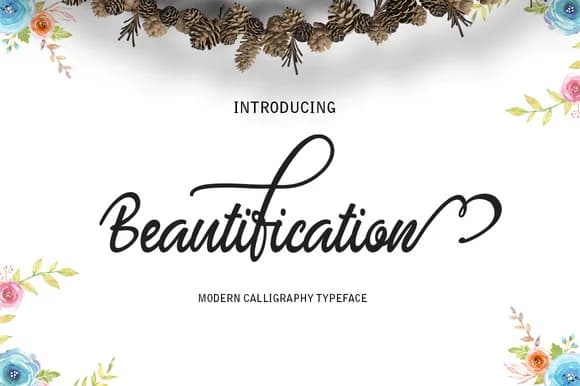
Beautification Font by Alqawoms is a flowing handwritten script typeface that captures the organic beauty of genuine pen-and-ink lettering. The font's smooth, expressive strokes and natural rhythm convey warmth and authenticity, making it ideal for projects where personality and refinement matter. Each letterform carries the unmistakable character of careful handwriting while maintaining the polish expected in professional design work.
This typeface shines across diverse creative applications. Designers use it for wedding invitation suites seeking an intimate, romantic feel, boutique cosmetics labeling that communicates luxury and care, artisan bakery menu cards that emphasize handmade quality, and small business branding where a personal touch sets them apart. The script also works beautifully in personalized stationery and sophisticated social media graphics that need to stand out in crowded feeds.
Beautification Font is a script font that shines as a display or heading face. Pair it with a clean sans-serif or serif font for body text β the contrast creates a clear hierarchy while the two styles stay balanced and easy to read.